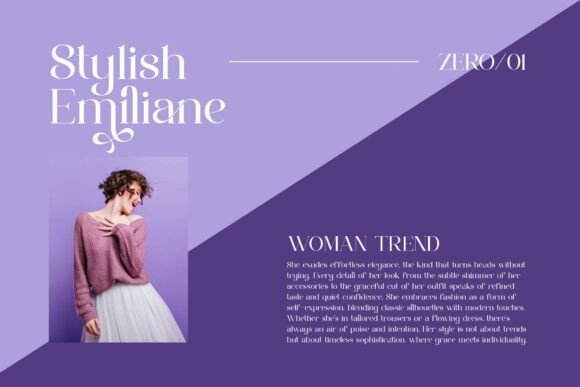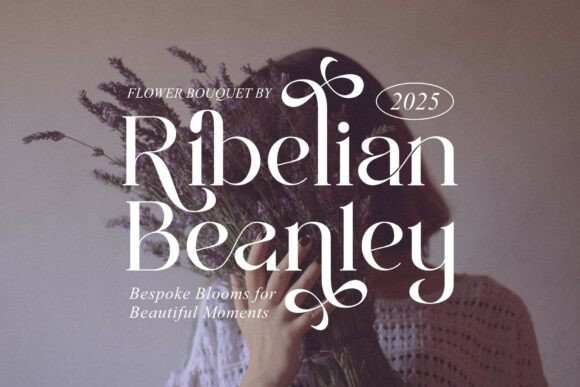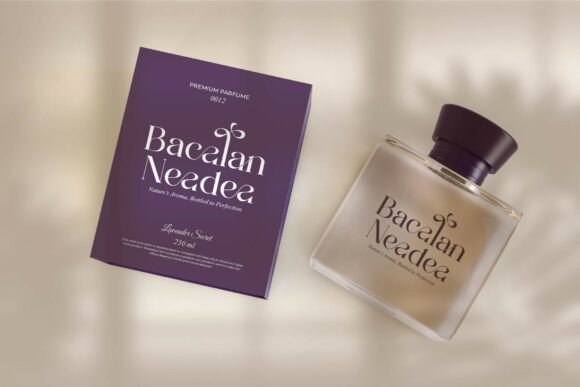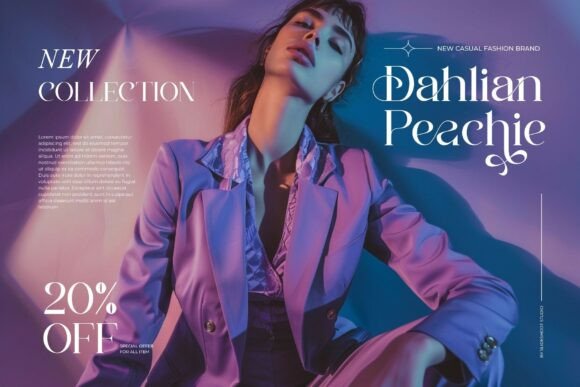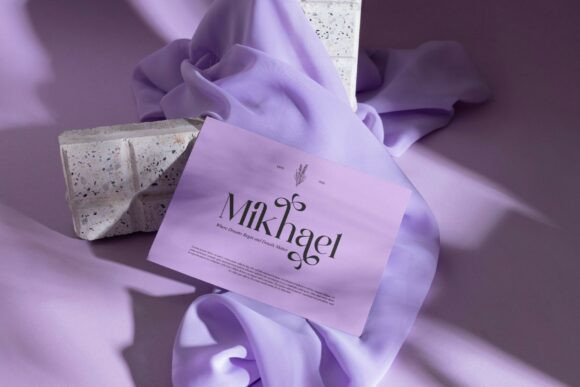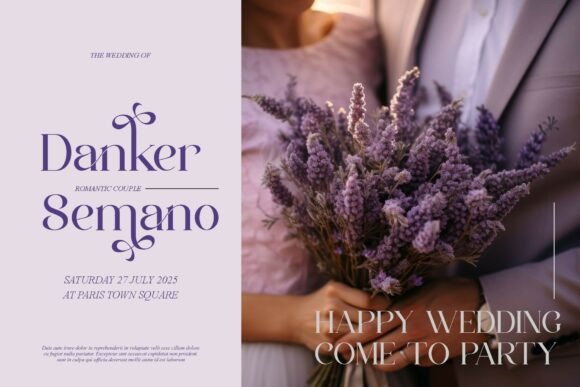
Introduction to Reafin Font
Have you ever been stuck on a creative project, searching for the perfect font to bring your vision to life? For designers, finding the right font can be a daunting task, but what if we told you that we’ve discovered a hidden gem that will elevate your designs to the next level? Enter the stunning Reafin Font, a stylish and elegant serif font that exudes sophistication and refinement.
Imagine creating a wedding invitation that’s nothing short of breathtaking, or designing a business card that leaves a lasting impression. With the Reafin Font, the possibilities are endless. Its high-quality design and transparent background make it the perfect resource for any creative project, from free download to professional design. Whether you’re a seasoned designer or just starting out, the Reafin Font is a valuable addition to your design arsenal.
Key Features of Reafin Font
- Unique, modern design with a transparent background, perfect for digital and print applications
- Includes a wide range of characters, including uppercase and lowercase letters, numbers, and punctuation
- Great for use in logos, branding, and other creative projects where a modern, clean font is desired
Honest Review: Reafin Font
As a designer, I’m always on the lookout for high-quality design resources to elevate my creative projects. Recently, I stumbled upon the Reafin Font, and I’m excited to share my honest review with you.
- ✨ The font’s clean and modern design makes it perfect for a variety of creative projects, from branding to digital art.
- ✨ The font comes in a range of weights and styles, giving me the flexibility to customize my designs to suit different needs.
- ✨ The transparent background makes it easy to layer and combine with other design elements.
Overall, I’m impressed with the Reafin Font’s high quality and versatility. While it may not be the most affordable option, its benefits far outweigh its limitations. If you’re looking for a professional-grade font to take your designs to the next level, I highly recommend giving the Reafin Font a try.
To get the most out of Reafin Font, experiment with different font sizes, colors, and combinations. You can also use it in conjunction with other design elements, such as graphics and images, to create a unique and eye-catching design.
Reafin Font is ideal for a variety of design projects, including wedding invitations, baby shower invitations, and other creative projects that require a touch of elegance and sophistication. You can also use it to create professional-looking documents and presentations.